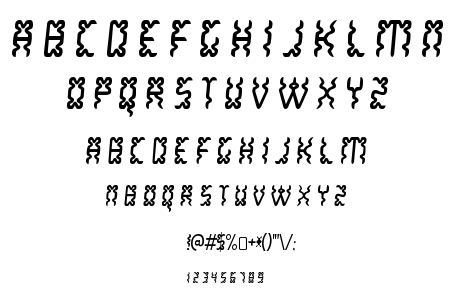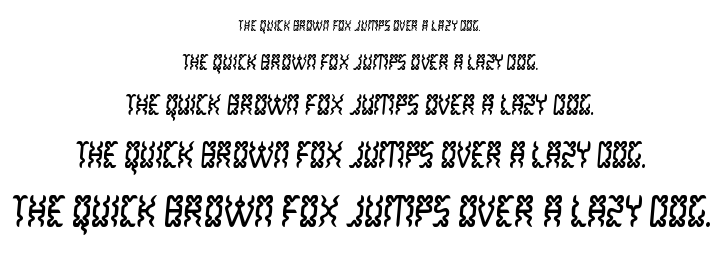
White Lake is all about the ramen noodles before the boiling water is added. Don’t forget to read the files inside the zip for details. Updated in 2012.